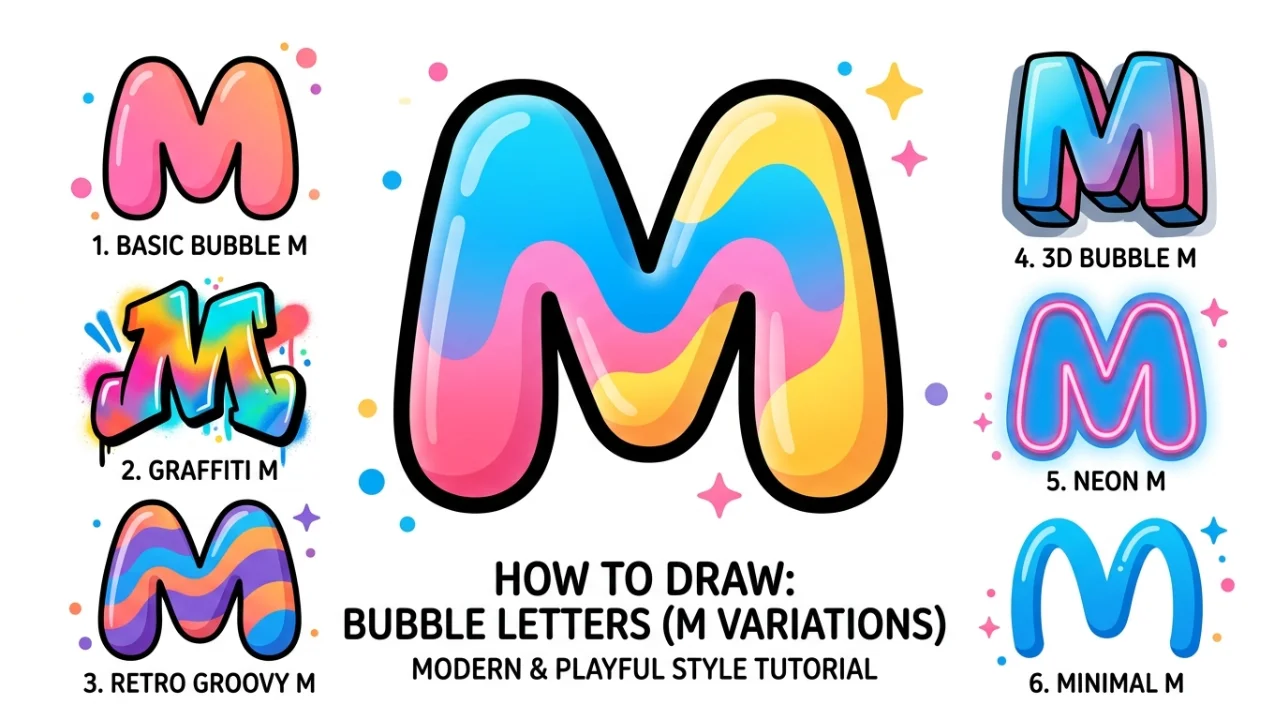
M in Bubble Letter Draw Step by Step Guide for Beginners
If you enjoy creative lettering, learning how to draw m in bubble letter is a fun and useful skill. Bubble letters look bold, soft, and rounded, which makes them perfect for posters, school projects, social media art, and even graffiti-style designs. Many beginners start with simple shapes, and the letter “M” is a great place to begin because it has clear curves and structure.
In this guide, you will learn what bubble letters are, how to draw them step by step, different styles you can try, and tips to make your lettering stand out. This article keeps things simple, clear, and practical so you can start drawing right away without wasting time.
What Are M In Bubble Letter?
Bubble letters are a type of lettering style where each letter looks puffy and rounded, like bubbles. Artists often use thick outlines and smooth curves to create this effect. These letters feel playful and eye-catching, which is why they are popular in art and design.
When you draw m in bubble letters, you focus on turning sharp edges into soft curves. This creates a bold and friendly look that stands out on any page.
Key Features of Bubble Letters
FeatureDescription
Rounded edgesNo sharp corners, only smooth curves
Thick outlinesLetters look bold and strong
Playful styleFun and creative appearance
Easy to customizeYou can add colors, shadows, and patterns
Why Learn Bubble Letter “M”?
The letter “M” has a unique shape with curves and peaks. This makes it perfect for learning control and balance in bubble lettering. When you master m in bubble letters, you build a strong base for drawing other letters.
Here are a few reasons to learn it:
• It improves your hand control
• It helps you understand spacing and curves
• It builds confidence in creative lettering
Step-by-Step Guide to Draw Bubble Letter M
Follow these simple steps to draw your own bubble letter M. Take your time and practice slowly.
Step 1: Draw the Basic Shape
Start by sketching a simple “M” using light pencil lines. Keep it straight and balanced. This will act as your guide.
Step 2: Add Rounded Edges
Now, go around your “M” and add a thick outline. Make sure all corners are curved instead of sharp. This is the most important step when creating m in bubble letter.
Step 3: Smooth the Curves
Look at your outline and adjust any uneven lines. Keep the curves smooth and even on both sides.
Step 4: Erase Inner Lines
Erase the original thin “M” inside your outline. Now you will see a clean bubble letter shape.
Step 5: Add Details
You can now decorate your letter. Add shadows, highlights, or patterns to make it look more interesting.
Common Styles of Bubble Letter M
There is no single way to draw bubble letters. You can experiment with different styles to create unique designs.
Basic Bubble Style
This is the simplest version. It uses smooth curves and even thickness. Beginners should start here.
Graffiti Style
This style looks more artistic and bold. It often includes sharp bends mixed with curves, along with extra details like arrows or drips.
3D Bubble Letters
In this style, you add depth to the letter by drawing a shadow or side view. It makes the letter look like it is popping out.
Decorative Style
You can fill your letter with patterns like dots, stripes, or gradients. This adds personality to your design.
StyleDifficultyBest For
BasicEasyBeginners
GraffitiMediumCreative projects
3DMediumPosters and titles
DecorativeEasyPersonal designs
Tips to Improve Your Bubble Letter Skills
If you want to get better at drawing m in bubble letter, you should focus on consistency and creativity.
Keep your lines smooth and steady. Avoid shaky outlines because they make your letters look messy.
Practice spacing. Make sure both sides of the “M” look balanced.
Use pencil first. Always sketch lightly before finalizing with a pen or marker.
Experiment with colors. Bright colors make bubble letters more attractive.
Add shadows carefully. Shadows create depth but should stay consistent in one direction.
Mistakes to Avoid
Many beginners make small mistakes that affect their final design. Avoid these common issues:
• Drawing uneven curves
• Making lines too thin
• Forgetting to erase guide lines
• Overcrowding with too many details
When you practice m in bubble letter, focus on clarity first before adding complex designs.
Tools You Can Use
You do not need expensive tools to start. Simple materials work perfectly.
ToolPurpose
PencilSketching the base shape
EraserCleaning up mistakes
MarkerBold outlines
Colored pensAdding style and color
Paper or sketchbookPractice surface
Conclusion
Learning how to draw m in bubble letter is simple, fun, and useful. You only need basic tools, a little patience, and regular practice. Start with a simple shape, add rounded outlines, and then explore creative styles. Focus on smooth curves, balanced design, and clean finishing.
With time, your skills will improve, and you will be able to create bold and eye-catching lettering for any project. Keep practicing, stay creative, and enjoy the process of turning simple letters into art.